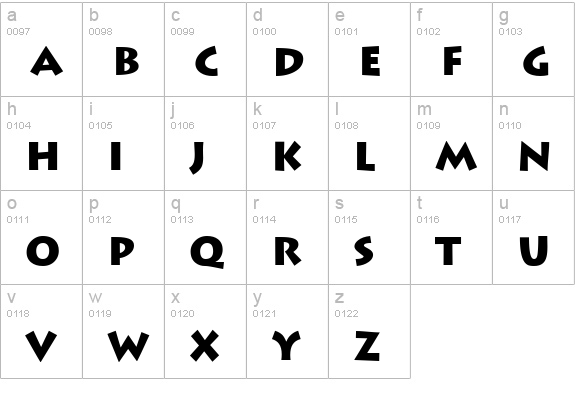
Liddie Black Font Details
Liddie Black is a maximum-weight, dramatic variant in the Liddie typeface family \xE2\x80\x94 well suited to maximum-impact headlines, posters, and packaging.
Liddie Black font is a sleek and modern typeface that exudes sophistication and elegance. With its bold and stylish design, this font is perfect for making a statement in any project. The clean lines and sharp edges of Liddie Black font give it a contemporary look that is sure to captivate any audience. What's even better is that Liddie Black font is available for free download at FontsMarket.com. This means you can easily access this stunning font and use it in your designs without any cost. Whether you're creating a logo, poster, or any other graphic design project, Liddie Black font will elevate your work to new heights. Don't miss out on this fantastic opportunity to enhance your designs with the striking Liddie Black font. Download it now and start creating beautiful and impactful designs today!